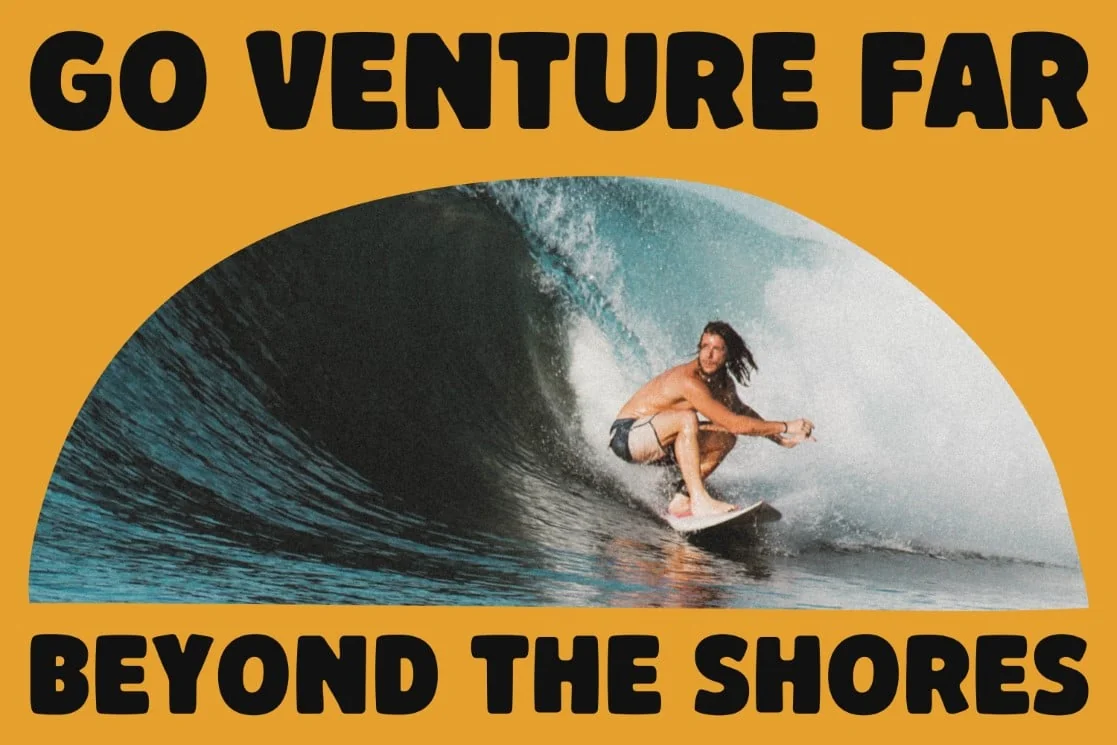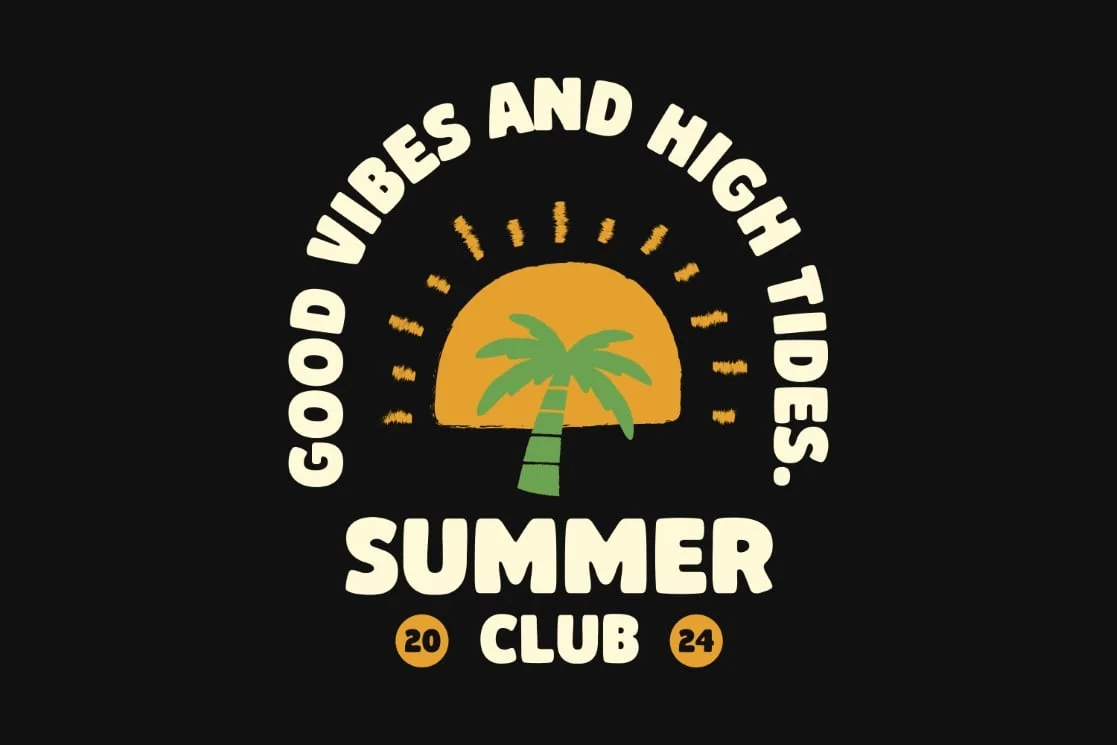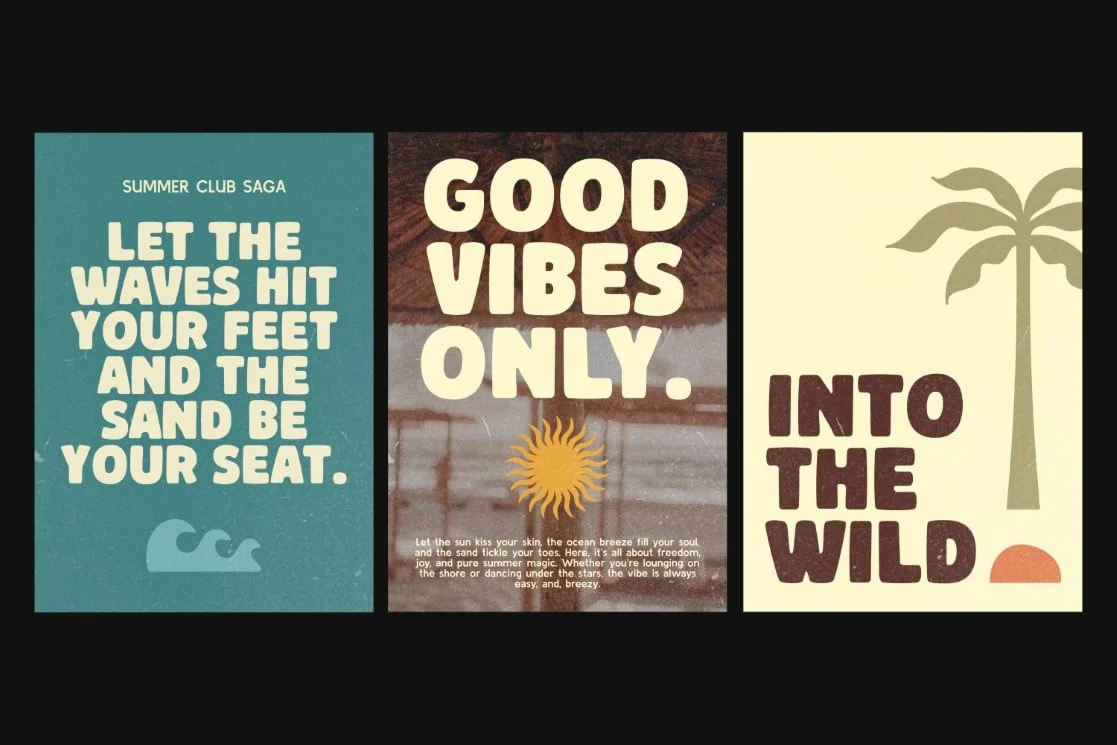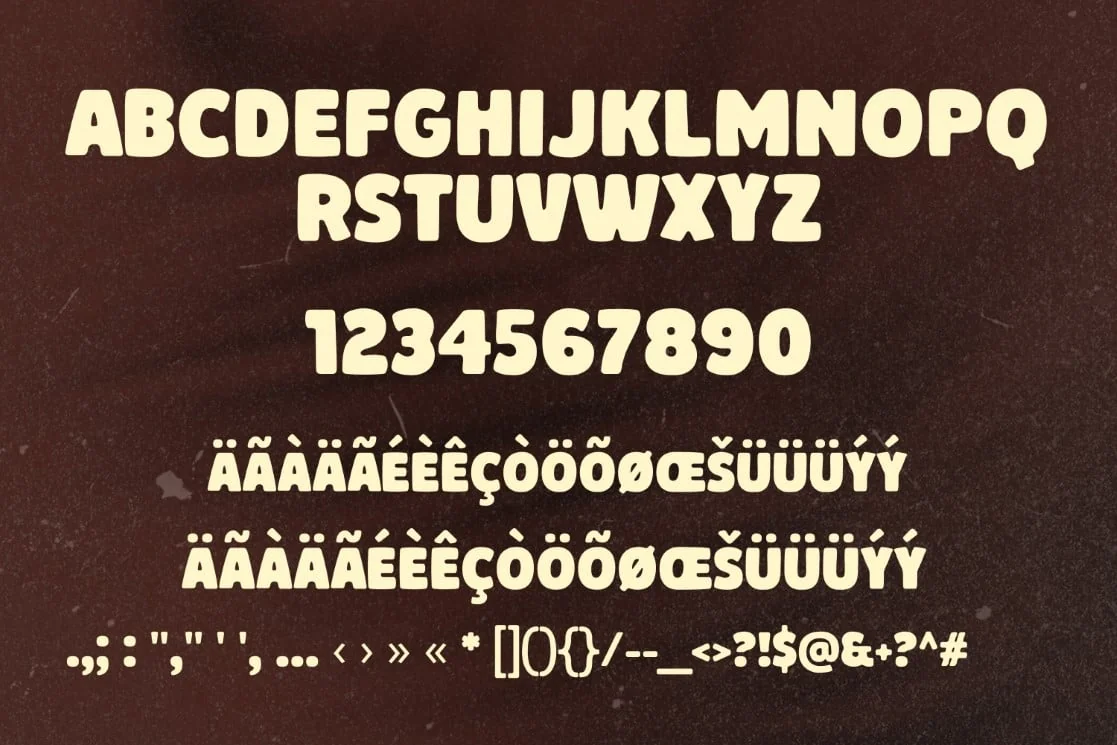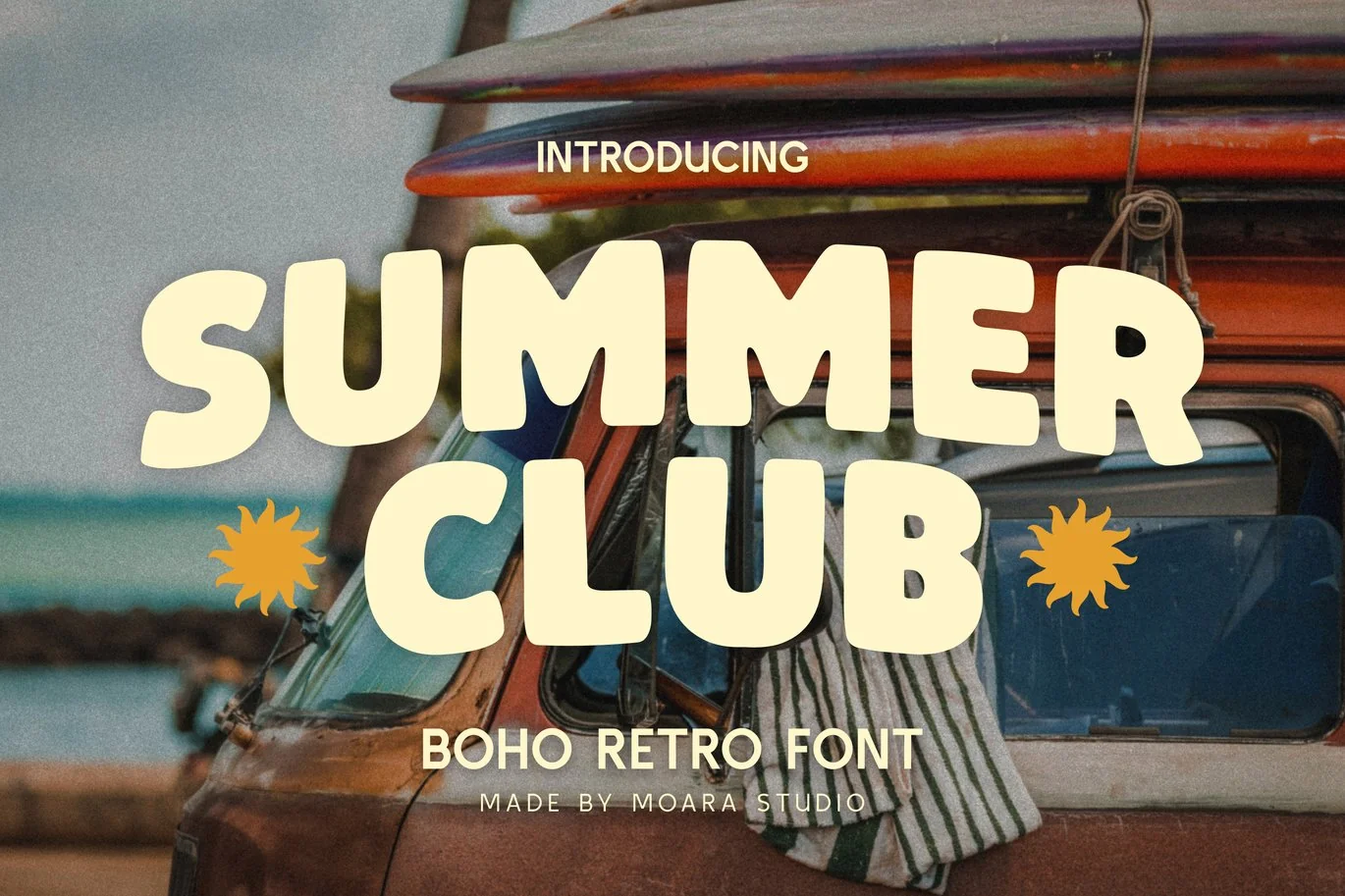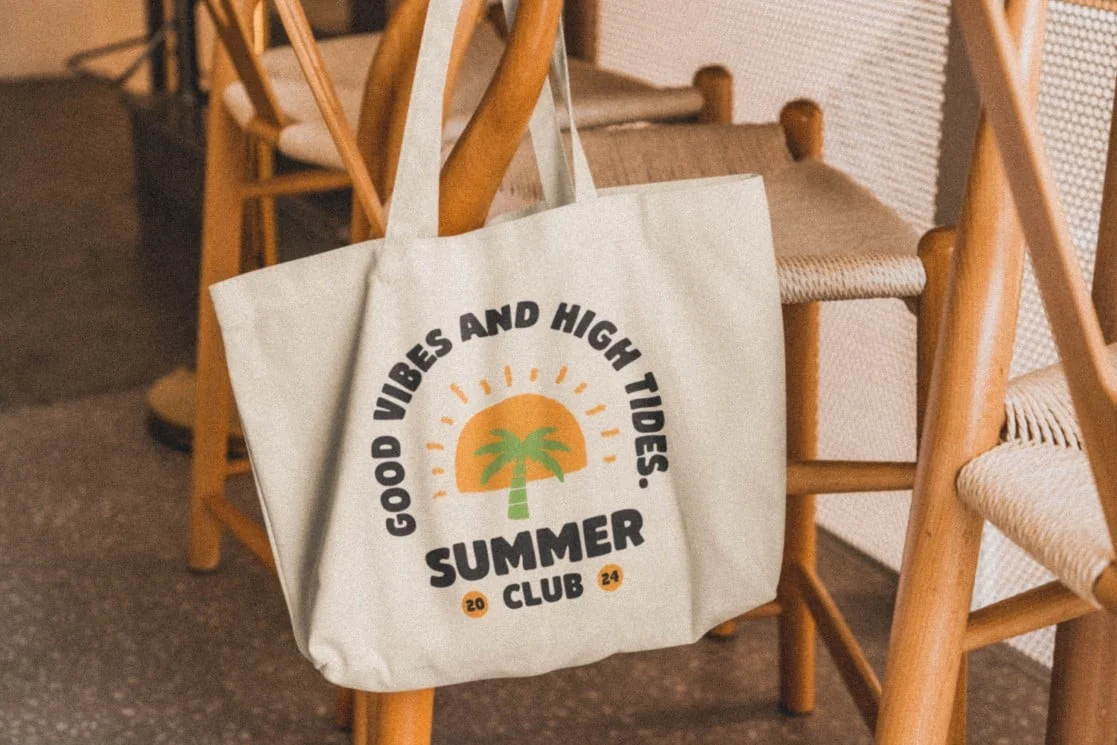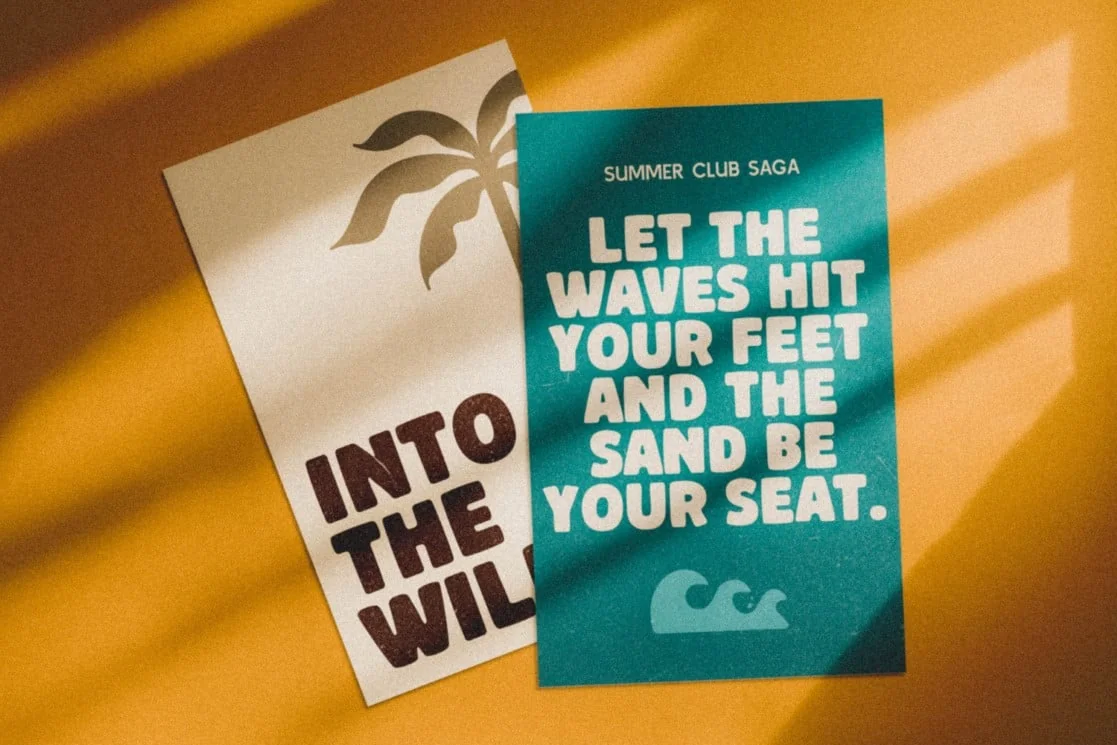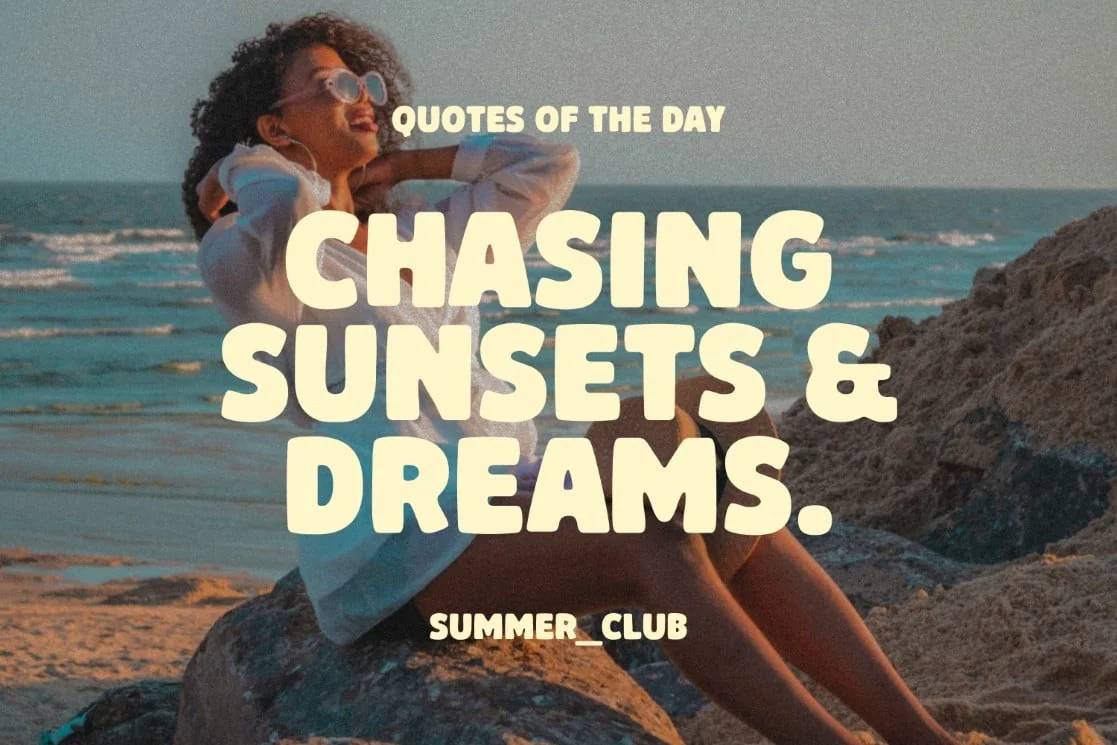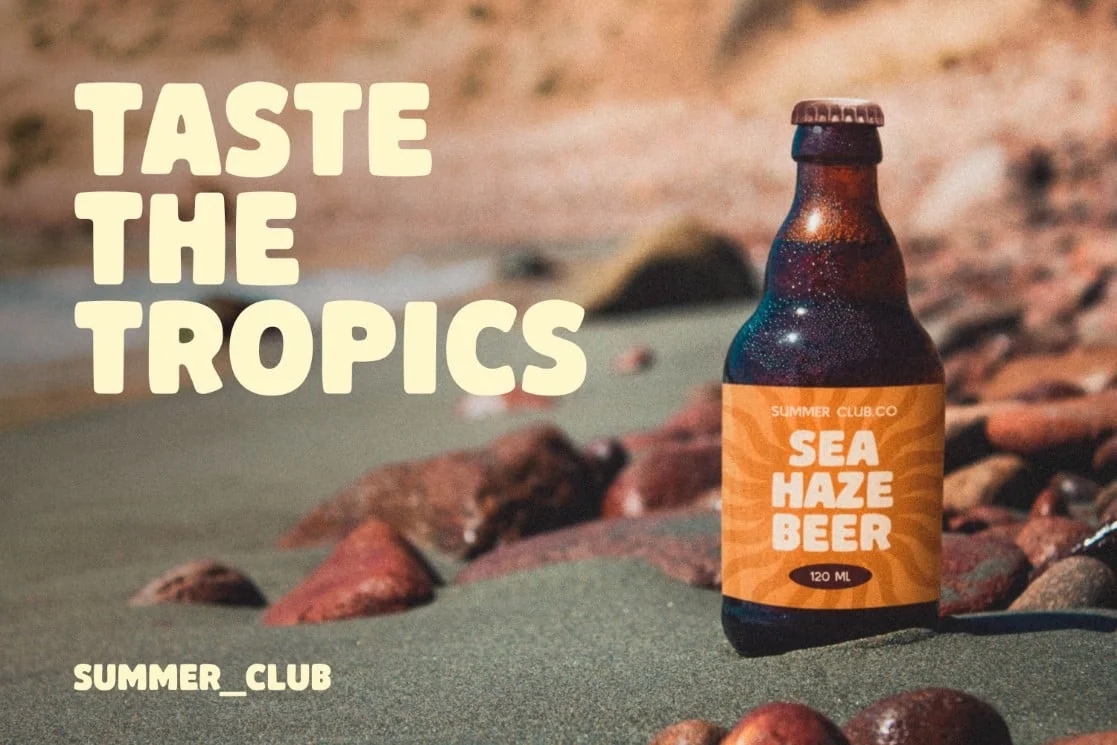
Summer Club – Boho Retro Font
Summer Club is a retro hand-drawn font that brings a playful, nostalgic vibe to your projects. Its bold, organic shapes evoke sunny summer days and beachside fun, making it perfect for designs that need a carefree and vibrant touch. Whether you’re creating posters, social media graphics, or branding, Summer Club adds a cheerful and warm feel to any work. Its fun, laid-back style is ideal for anything that aims to capture the essence of summer and creativity.